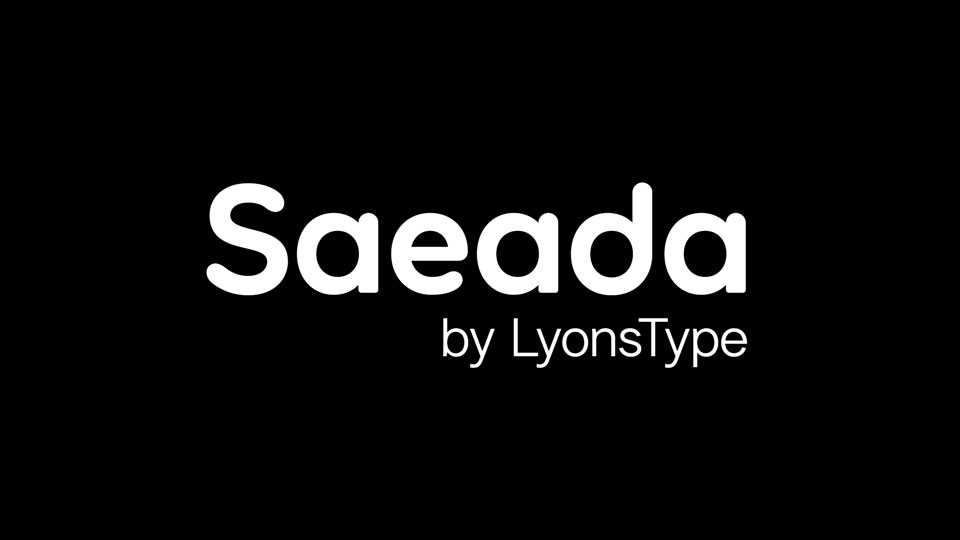
Download LT Saeada font, a modern and rounded geometric sans-serif font designed to bring a harmonious blend of contemporary style and approachable warmth to your designs.
Designer: LyonsType